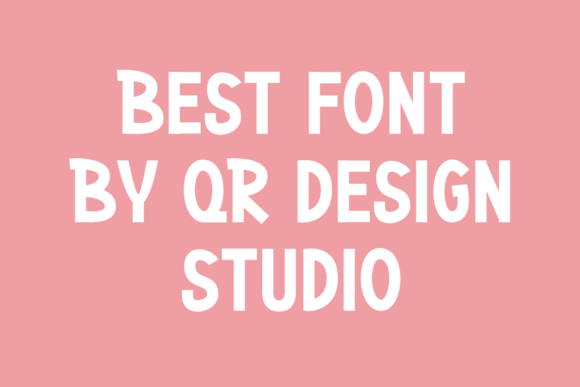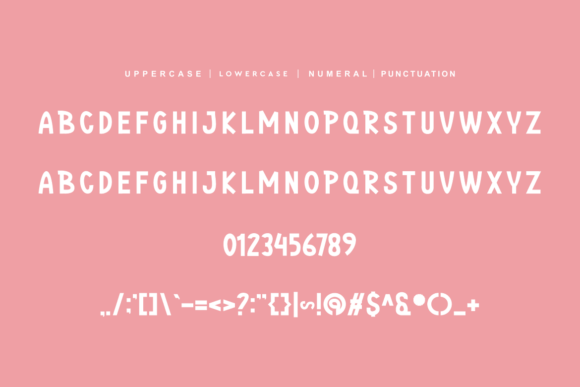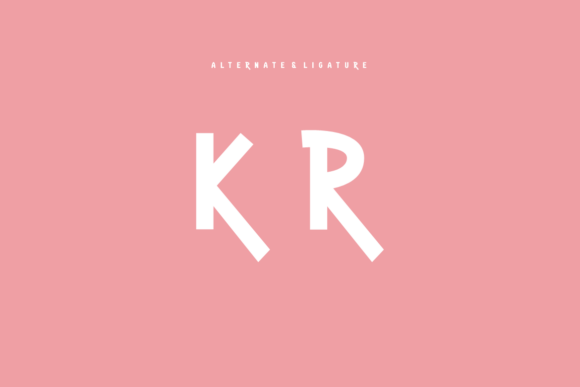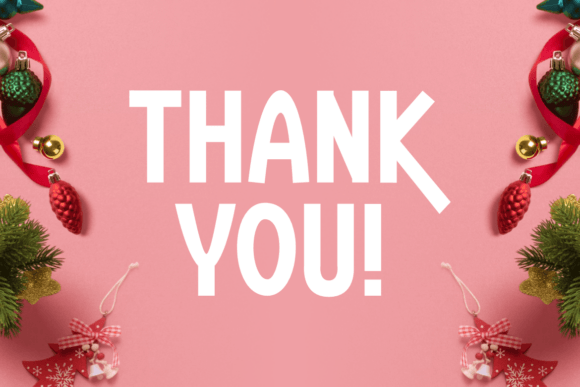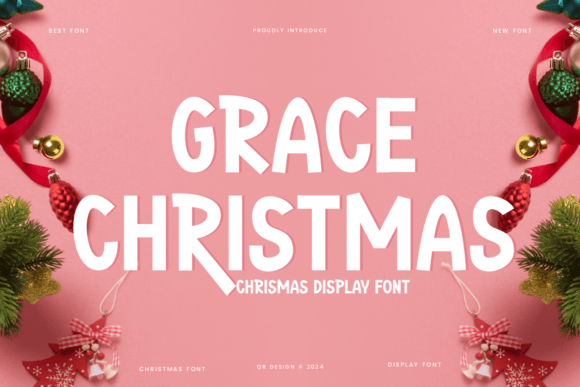
Introducing the Delightful Grace Christmas Font: Elevate Your Holiday Designs
The holiday season is upon us, and with it comes the joy of creating festive and captivating designs. Whether you’re a professional designer, a crafty DIY enthusiast, or a small business owner looking to add a personal touch to your holiday promotions, having the right typography is essential. This is where the Grace Christmas Font comes into play, a sweet and friendly handwritten font that’s perfect for adding a warm, personal touch to your holiday projects.
A Font That Embodies the Spirit of the Season
Grace Christmas is more than just a font; it’s a design element that can transform your projects into something truly special. Described as a sweet and friendly handwritten font, it brings a natural and unique style to the table. This makes it incredibly versatile and fitting for a large pool of designs. From holiday greeting cards and festive posters to cozy packaging and merry social media graphics, Grace Christmas can be the perfect companion to your creative endeavors.
What Makes Grace Christmas Font So Special?
- Unique and Handwritten Style: The natural, handwritten look of Grace Christmas adds a personal touch to any design. Its uniqueness ensures that your projects stand out in a sea of generic fonts.
- Versatility: The only limit to using Grace Christmas is your imagination. It can be used for a wide range of projects, from intimate Christmas cards to large-scale advertising banners.
- Easy to Read: Despite its decorative nature, Grace Christmas remains clear and easy to read, making it perfect for both headlines and body text.
- Emotional Connection: The warmth and friendliness of the font help create an emotional connection with the reader, making your designs more engaging and memorable.
Ideas to Get You Started
With Grace Christmas at your disposal, the possibilities are endless. Here are a few ideas to inspire you:
- Holiday Cards and Invitations: Create personalized Christmas cards, invitations to holiday parties, or New Year’s Eve celebrations that feel special and unique.
- Social Media Graphics: Stand out on social media with festive graphics that use Grace Christmas to announce holiday promotions, share seasonal messages, or simply to add some holiday cheer to your feed.
- Packaging: Add a personal touch to your product packaging during the holiday season. A beautifully designed label or package with Grace Christmas can make your products feel more special and gift-ready.
- Web and Blog Headers: Give your website or blog a holiday makeover with headers and banners that feature Grace Christmas. It’s a great way to create a festive atmosphere for your visitors.
Tips for Using Grace Christmas Font Effectively
To make the most out of Grace Christmas, consider the following tips:
- Mix and Match: Don’t be afraid to combine Grace Christmas with other fonts to create visual interest. A serif font for body text and Grace Christmas for headings can be a great combination.
- Play with Colors: The right color can enhance the friendly and warm feel of Grace Christmas. Consider traditional holiday colors like red, green, and gold, or go for a more modern look with pastel shades.
- Keep it Legible: While Grace Christmas is easy to read, ensure that your design choices (like size and color) don’t compromise readability, especially for longer texts.
Grace Christmas Font is a delightful addition to any designer’s toolkit, especially during the holiday season. Its sweet and friendly handwritten style, combined with its versatility, makes it the perfect choice for a wide range of projects. Whether you’re creating holiday cards, festive social media graphics, or special packaging, Grace Christmas can help you convey the warmth and cheer of the season. So let your imagination run wild, and make your holiday designs truly unforgettable with Grace Christmas Font.